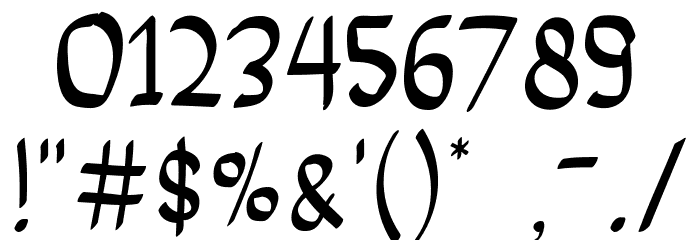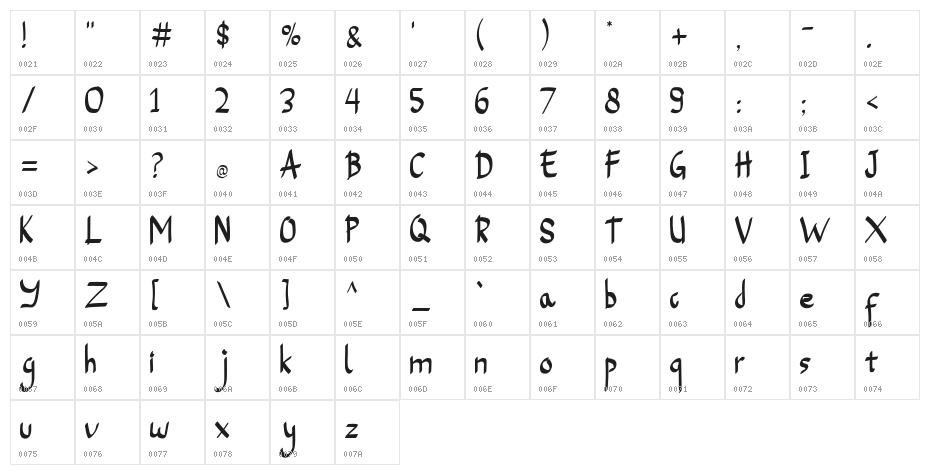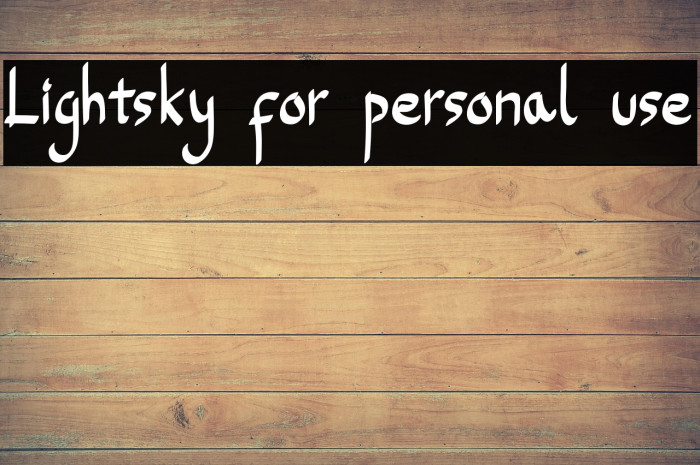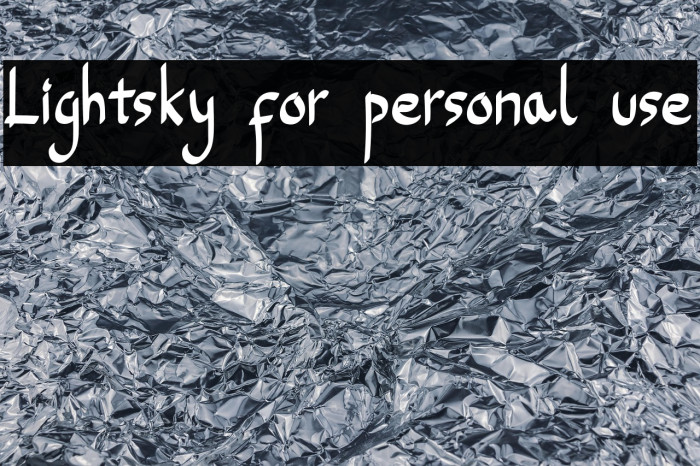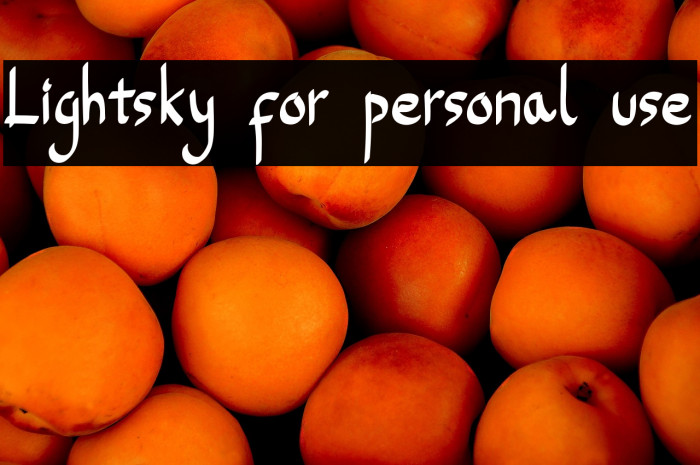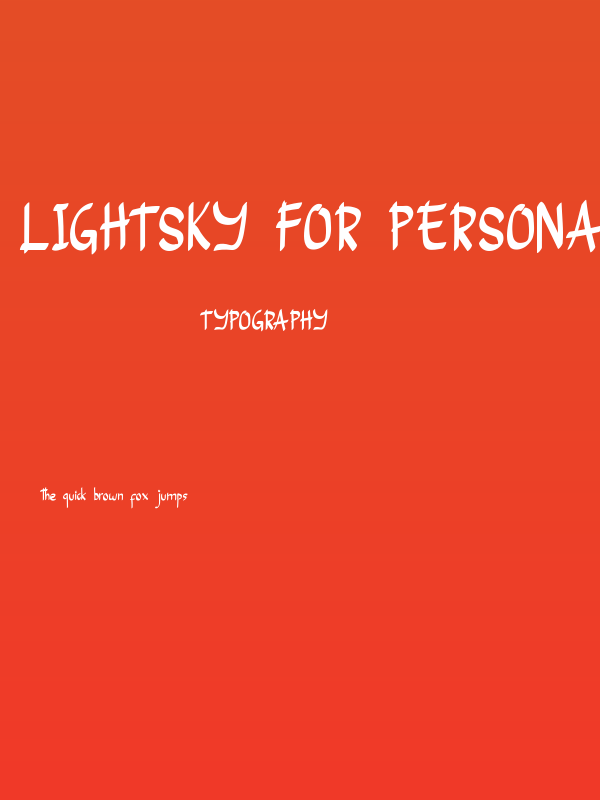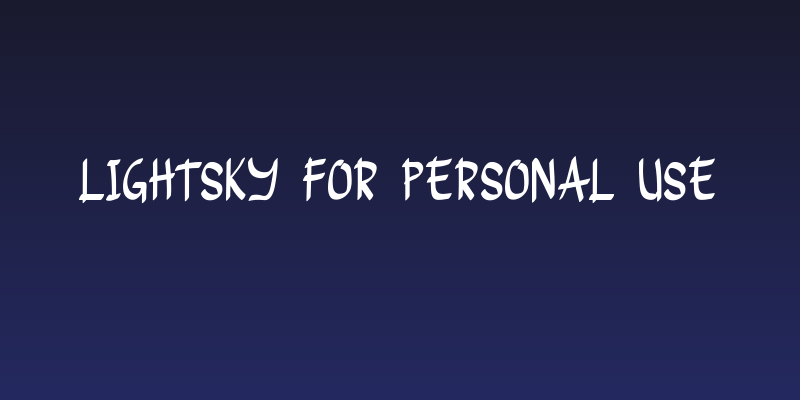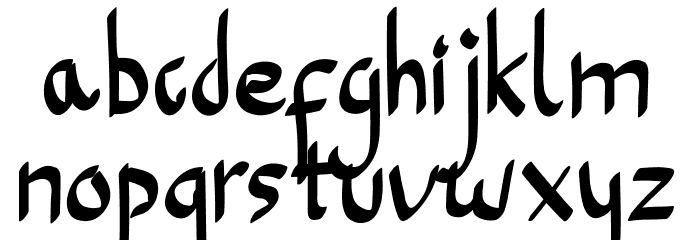
Lightsky for personal use Font
Lightsky for personal use Description
This font features a playful and dynamic handwritten style, characterized by its irregular strokes and casual appearance. The letters have a slightly slanted orientation, giving them a sense of movement and energy. The uppercase and lowercase letters maintain a consistent style, with rounded edges and varying stroke widths that add to its informal charm. Numbers and special characters are designed to match the overall aesthetic, ensuring a cohesive look across all text elements. This font is ideal for projects that require a personal touch or a creative flair.